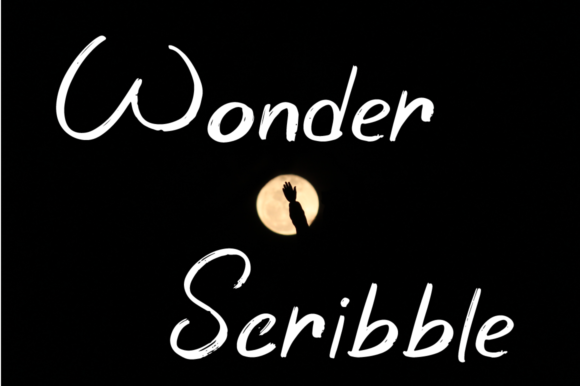
Behold, Wonder Scribble Font – A Script Symphony Awaiting Your Creative Touch!
Immerse yourself in the world of Wonder Scribble, a captivating handwritten font that emanates charm, authenticity, and boundless creative potential. Step into a realm where your imagination takes center stage, and your designs come alive with a touch of elegance and playfulness.
Whether you're a seasoned design maestro or just starting your creative journey, Wonder Scribble has something magical in store for you. Crafted with meticulous care and attention to detail, this script font is a versatile masterpiece that adapts seamlessly to a myriad of design endeavors.
Picture this: You're working on an enchanting invitation for a special occasion, and you want the words to dance off the page with a personal touch. Wonder Scribble becomes your secret weapon, transforming ordinary text into an extraordinary affair. Its whimsical strokes and flowing curves add an irresistible charm that captivates the senses and leaves a lasting impression.
Or perhaps you're designing a heartfelt greeting card for a loved one, longing to express emotions that words alone cannot convey. Wonder Scribble becomes your emotional conduit, translating your heartfelt messages into tangible expressions of love and care. Its delicate lines and graceful glyphs evoke a sense of warmth and intimacy that resonates with the recipient's heart.
The possibilities are endless with Wonder Scribble as your creative partner. From eye-catching logos that demand attention to stunning social media posts that captivate audiences, this font is a versatile chameleon that seamlessly adapts to your vision. Its innate ability to elevate the ordinary into the extraordinary makes it an indispensable asset in any designer's toolbox.